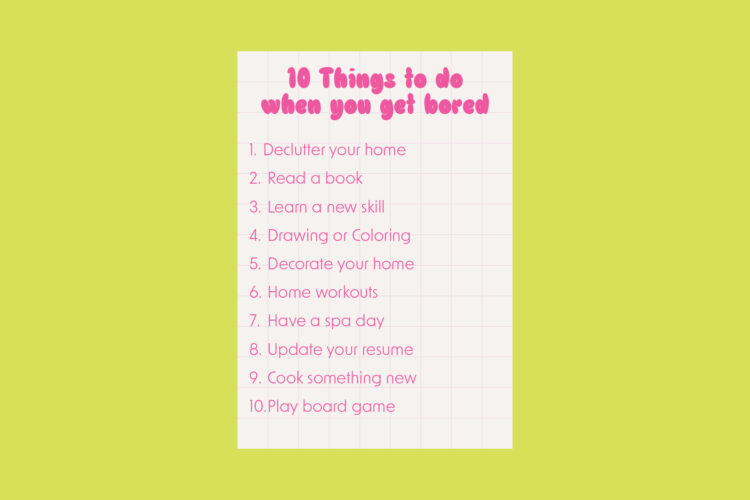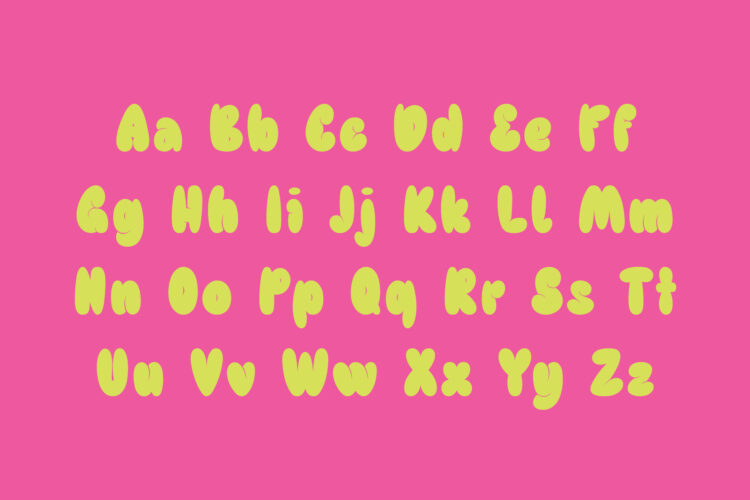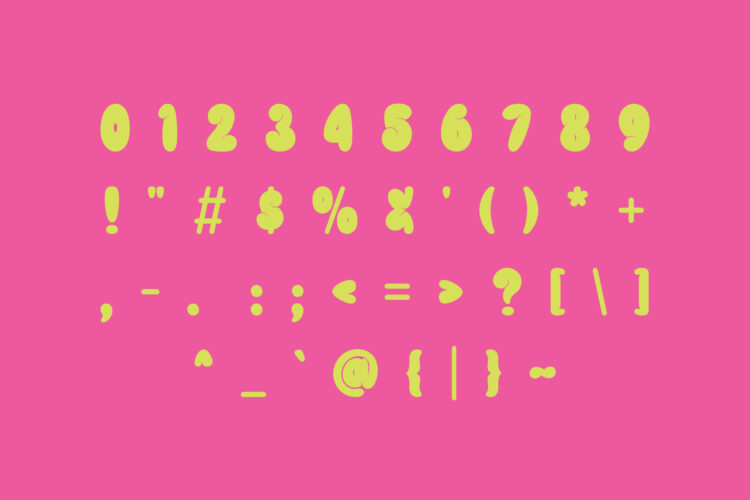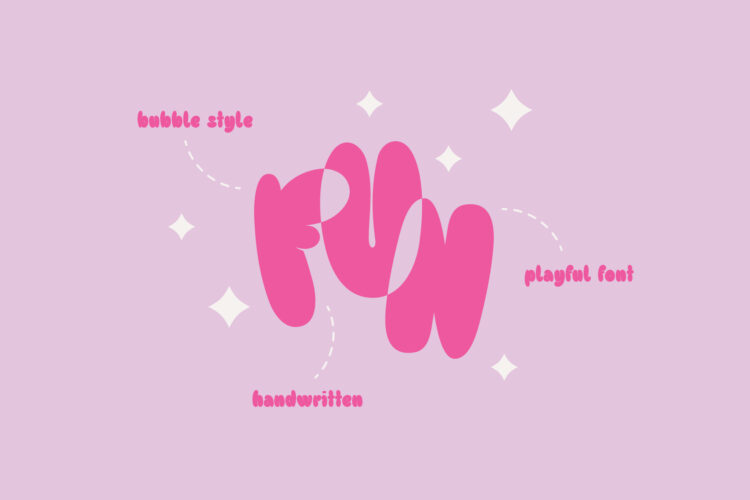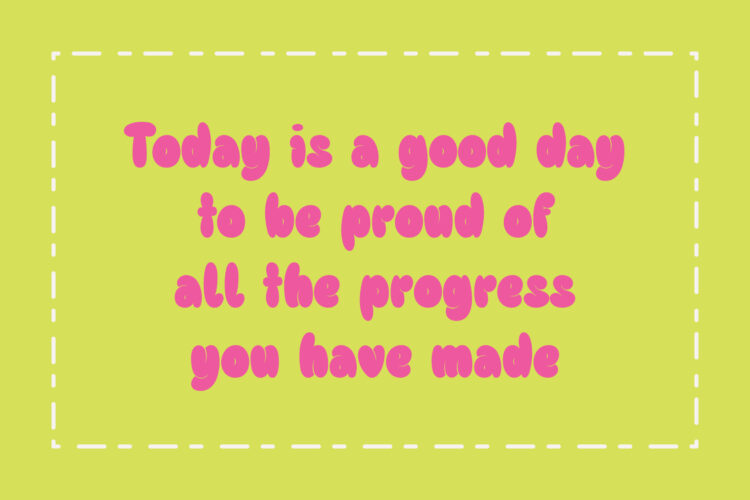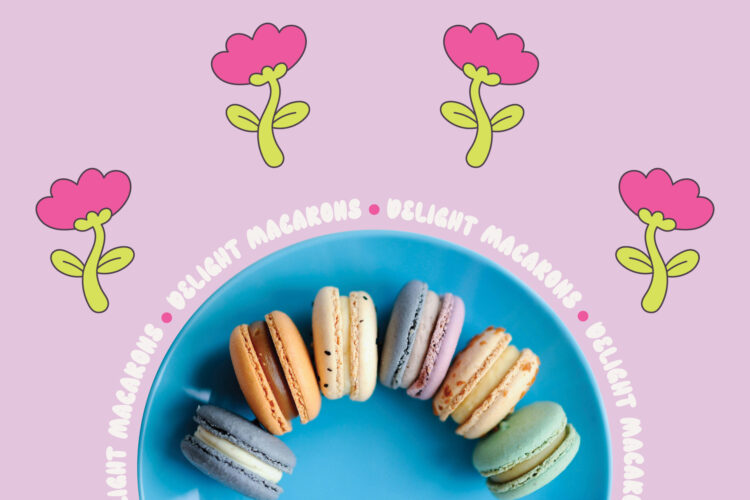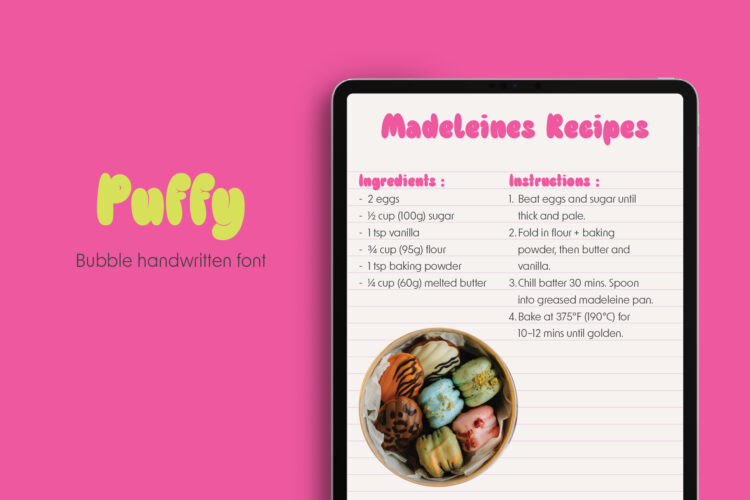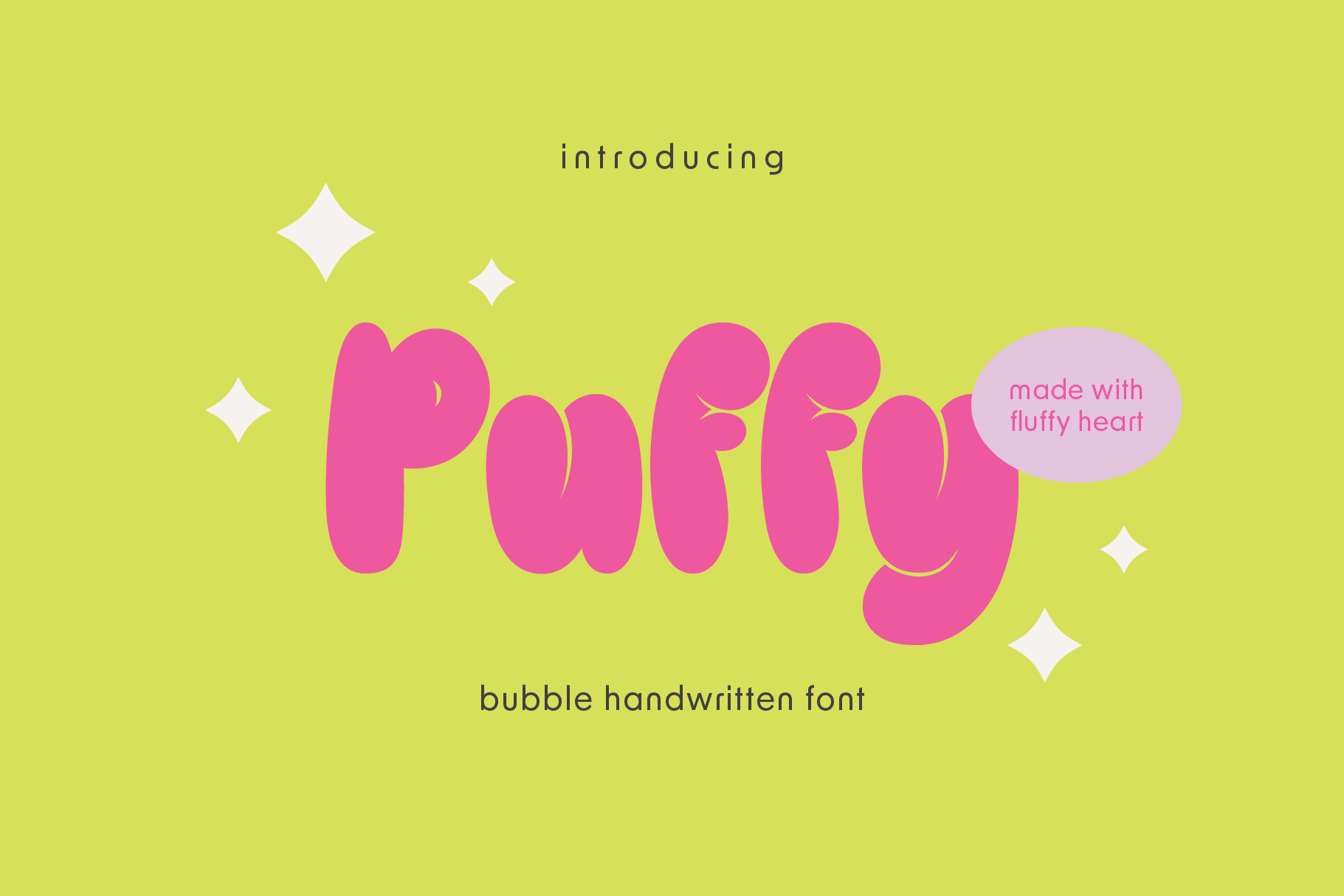
Introducing Puffy, bubbly font that’s as fluffy as a cloud! With its rounded, thick letters, Puffy is the perfect choice for adding a touch of playful and fun to your designs
Uppercase and lowercase letters, numbers, and basic punctuation
Perfect for: posters, magazines, logos, baby clothing, and more!